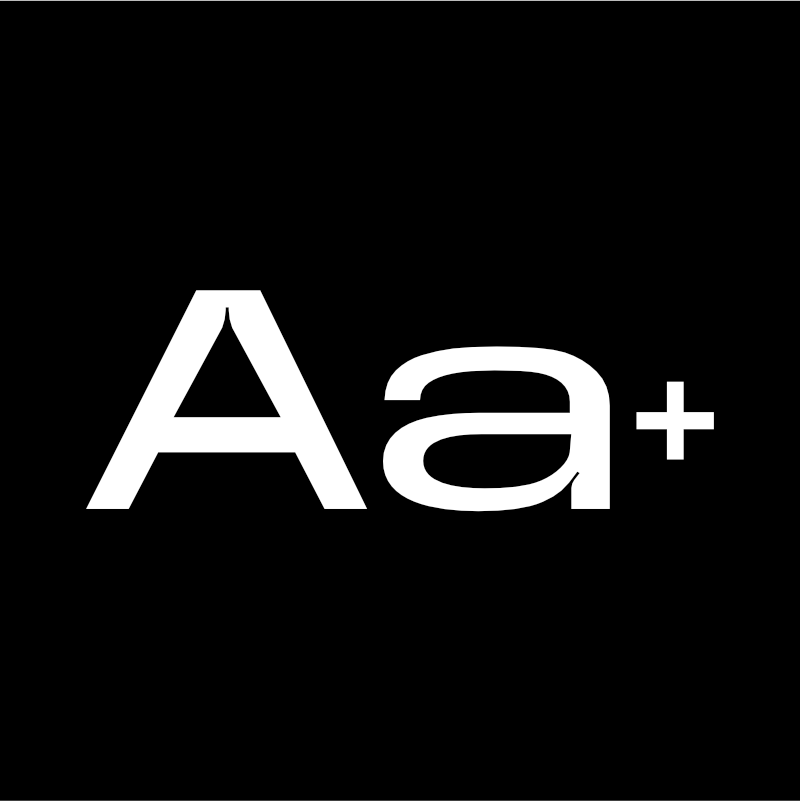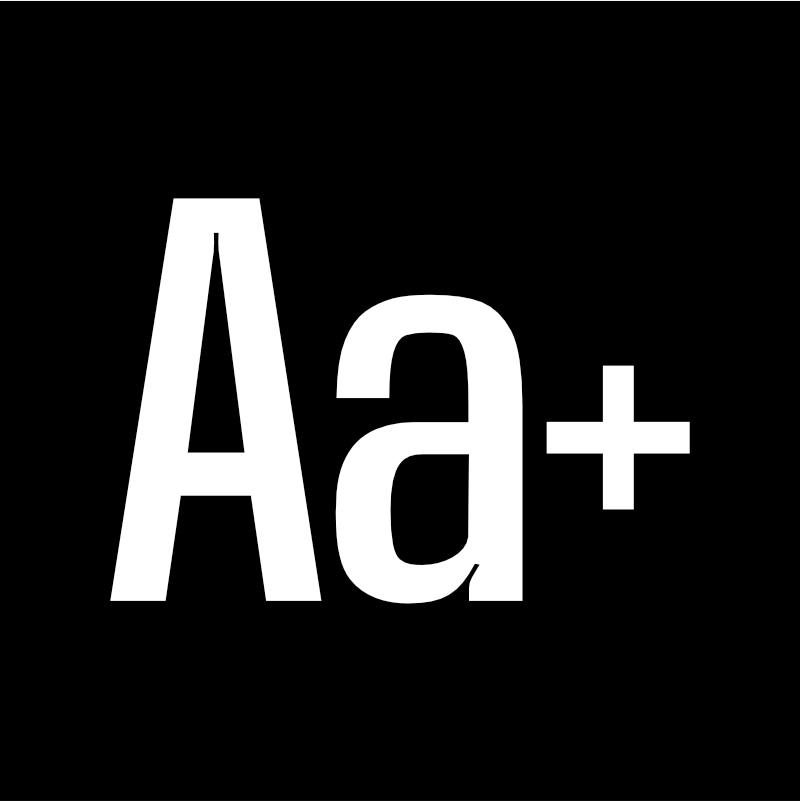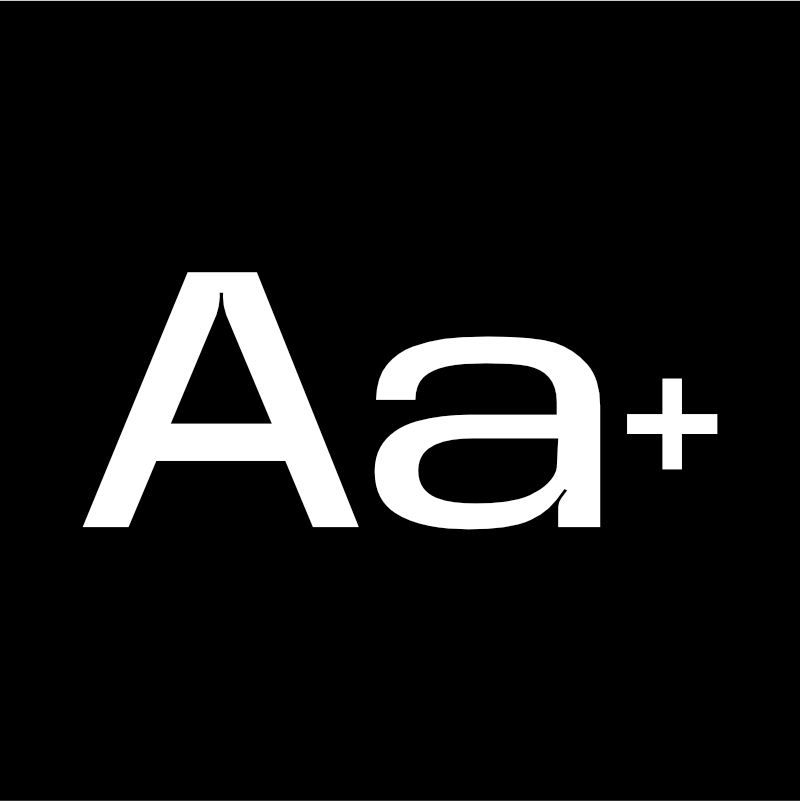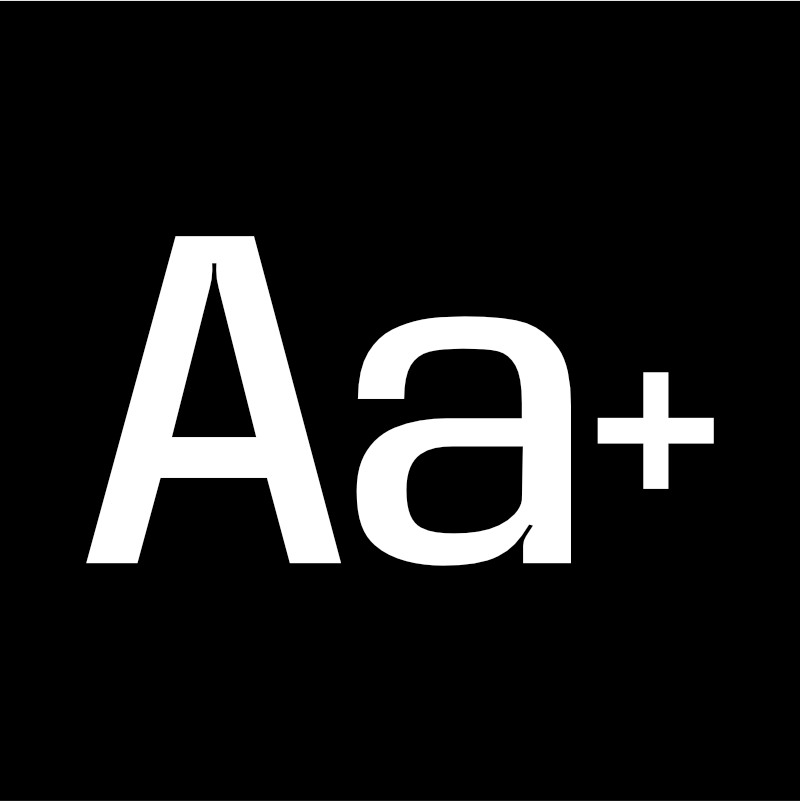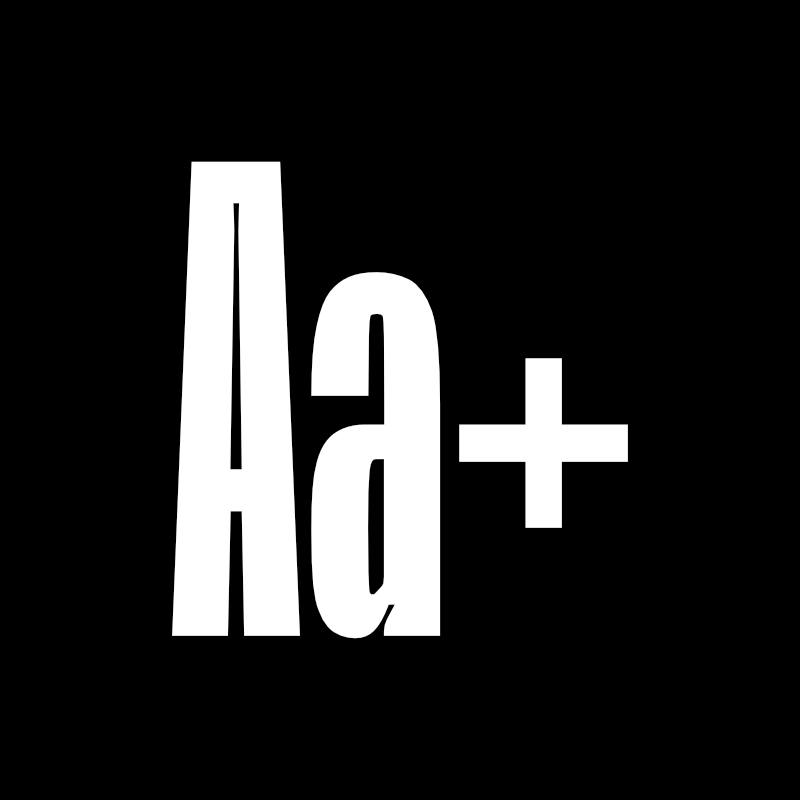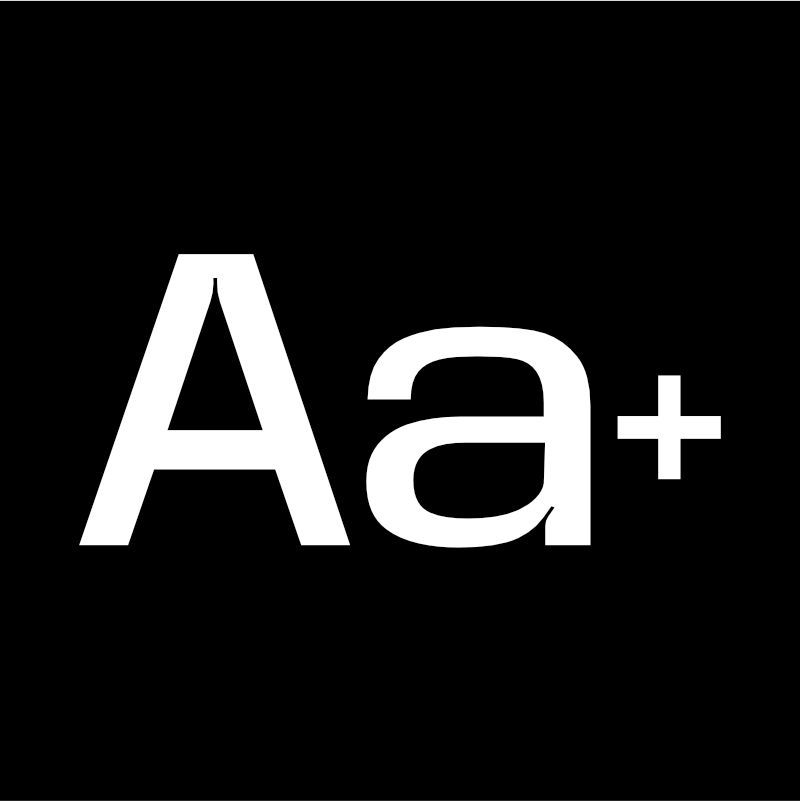
Base Neue
Base Neue is the reincarnation of the basic typography (adaptation) of modern civilization. InkTrap is applied and many variations that can be used for this typeface, from very narrow media to extra-large publications. Weights from thin to black and then there are widths from Super Condensed to Super Expanded, which of course are all used in various media, from heading or titles to body text.
Base Neue provides a total of 108 styles consisting of 782 glyphs per style. 95 different languages are supported, and it also has access to alternative letters and interesting ligatures